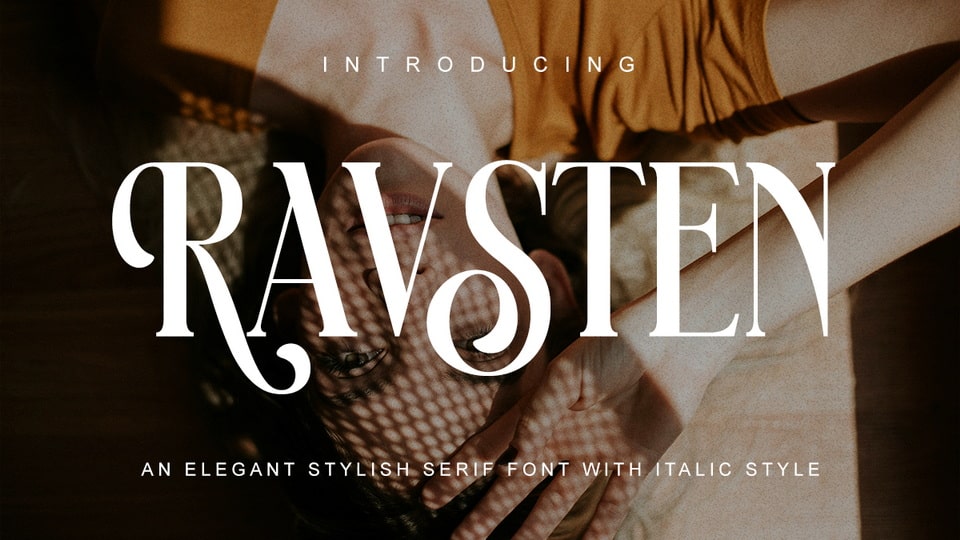
Download Ravsten font, an elegant condensed serif typeface with italic style, exuding a vintage charm and nostalgic feel that makes it perfect for a wide array of design applications.